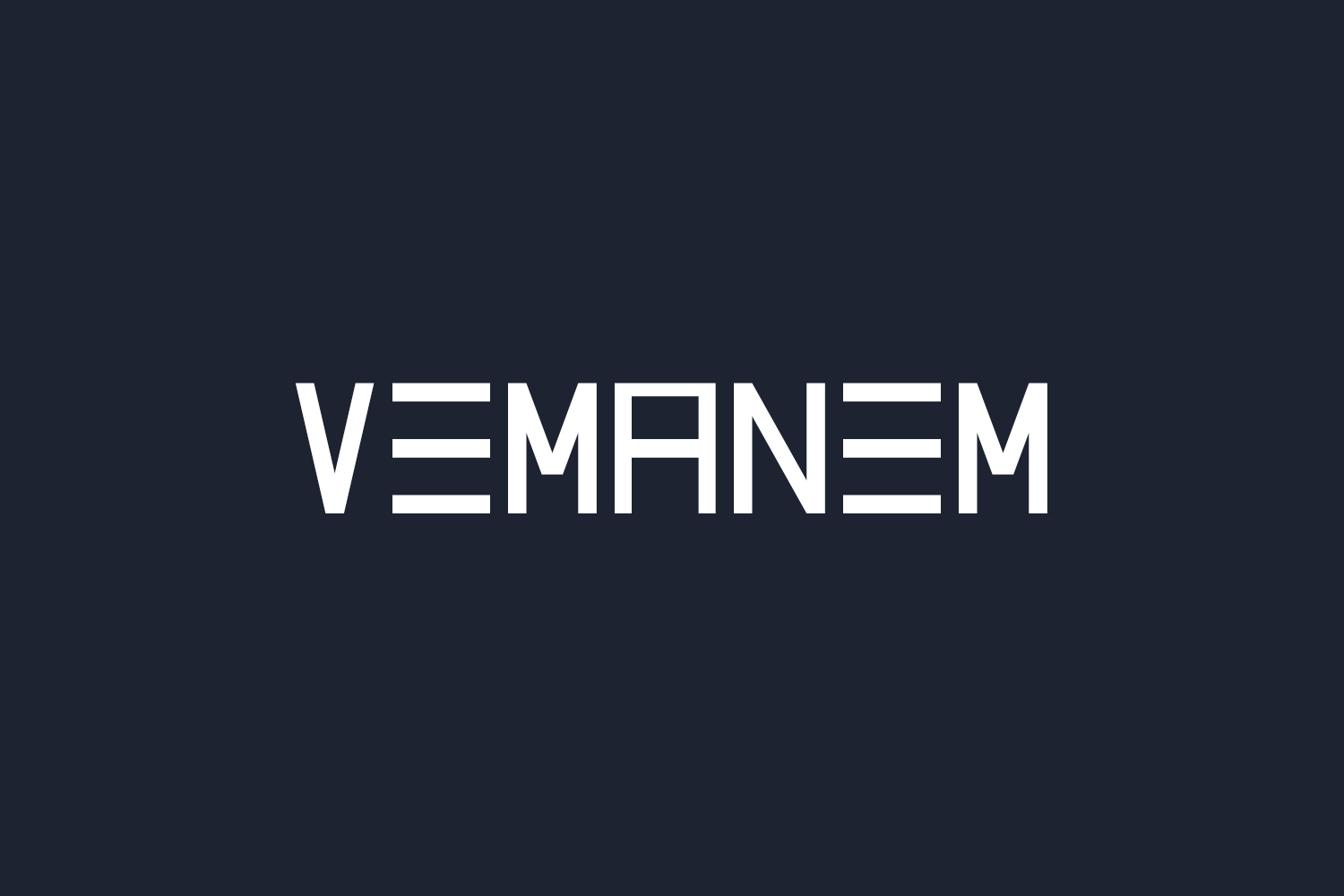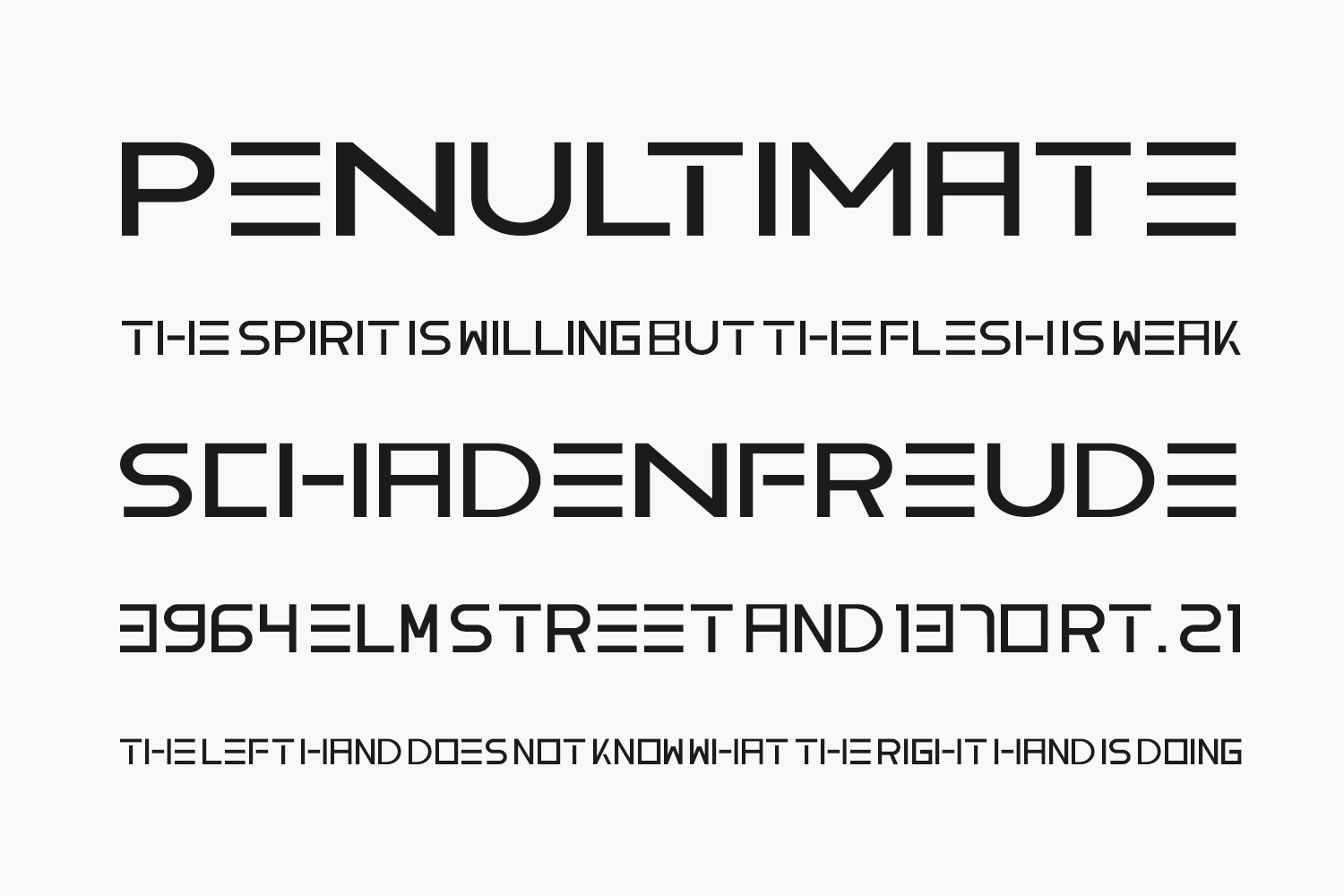
Vemanem Free Font is a modern and cool display font. No matter the topic, this font will be an incredible asset to your fonts’ library, as it has the potential to elevate any creation. Vemanem Free Font was designed by Ffeeaarr is a demo and free for personal use only. Please purchase the full version for commercial use.